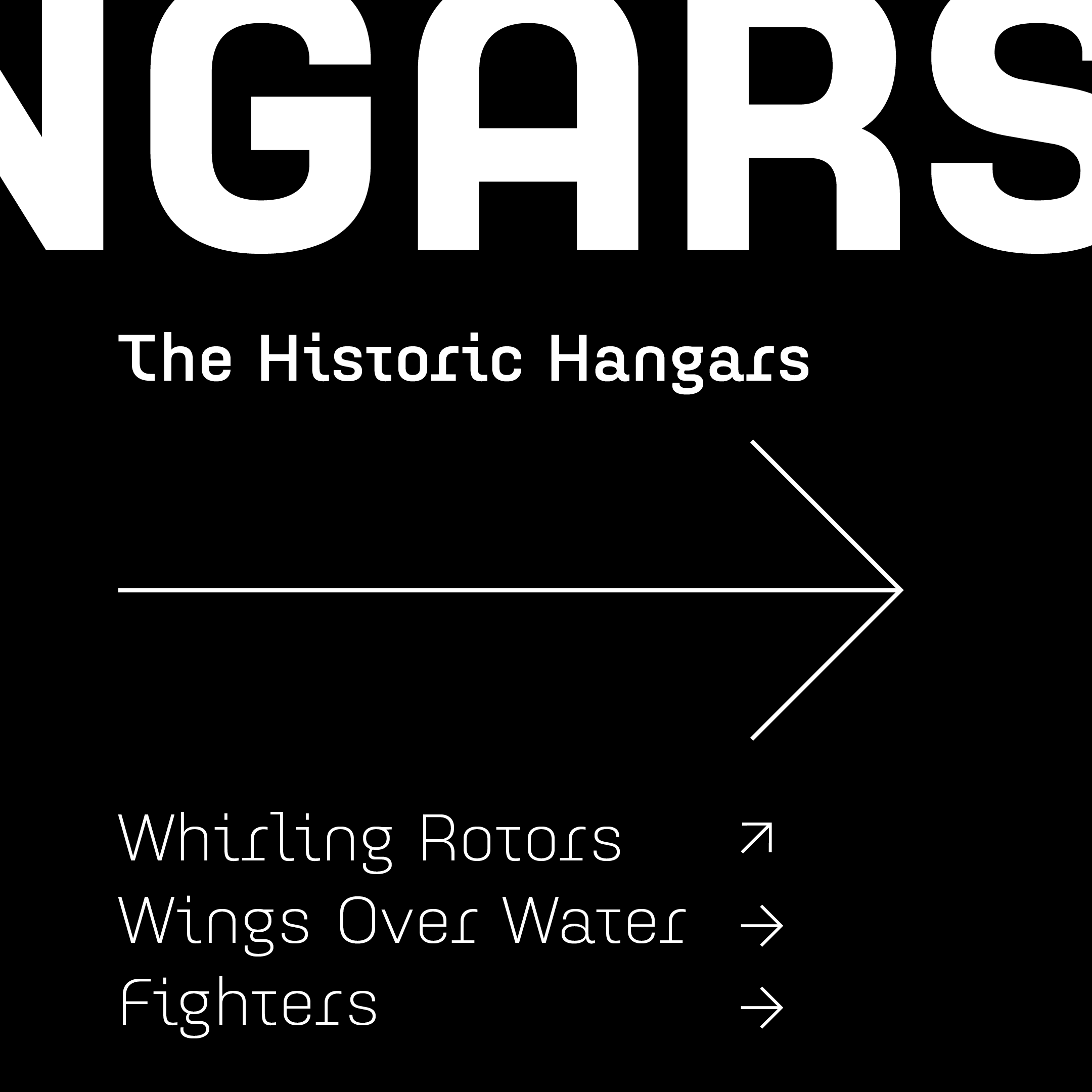
Idealista
Idealista is a typeface that combines elements of sans-serif, slab-serif, geometric, and humanistic calligraphic design principles. Available in six weights, it offers a unique blend of distinctive details and playful elements that will surprise the viewer in any headline or logotype. The italics do not primarily serve to emphasize text; instead, the slanted styles are used to create a sense of dynamism.